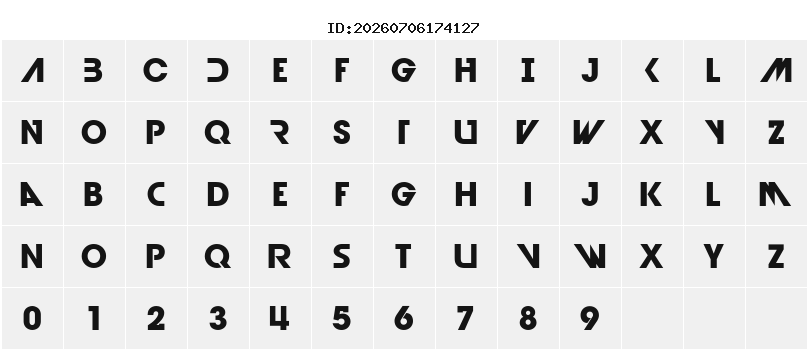
Devil Breeze Preview
• Font Name: Devil Breeze
• Full Font Name: Devil Breeze Bold
• Designer: Wesley Pastrana
• Manufacturer: Wesley Pastrana Rosado(Weslo GFx)
• Description: Inspirate in The Famous Font ITC Avant Garde
Devil Breeze.ttf is a modern, elegant sans-serif font designed for ultimate readability and visual harmony. Perfect for branding, headlines, web design, and print materials.